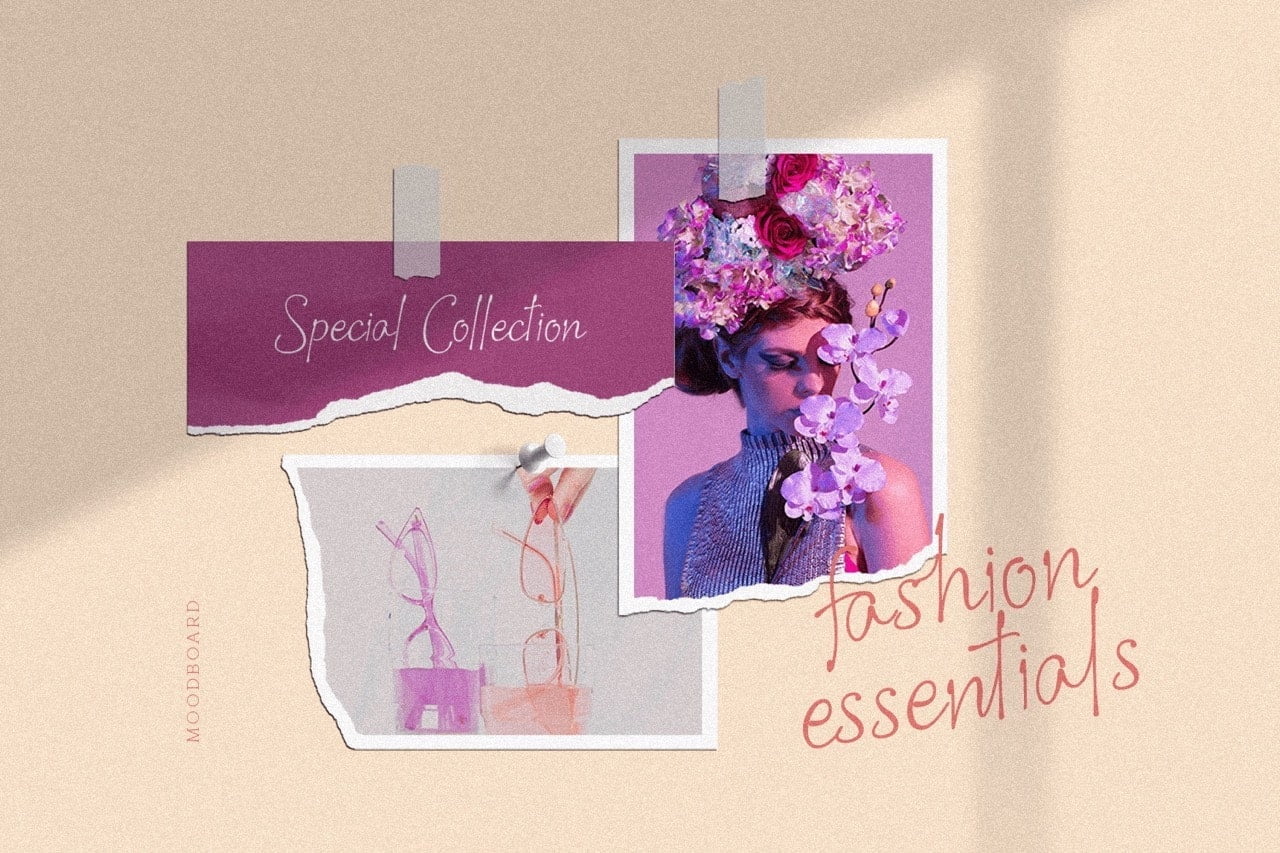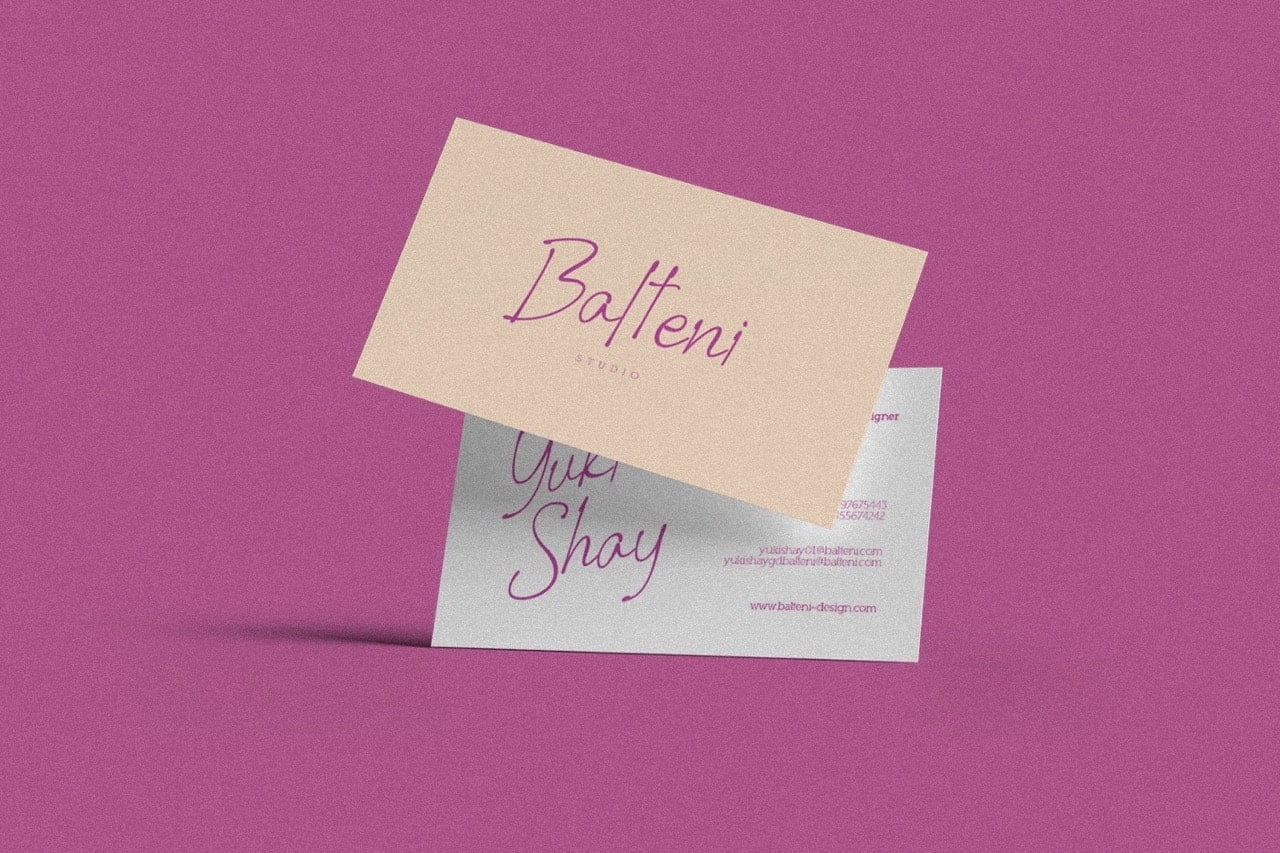
All Sunday has a handwritten and friendly feel, making it ideal for branding and logo designs, wedding invitations and stationery, social media posts, etc. Each font is handcrafted with custom handwritten kerning settings to give the feel of much more detailed lettering.
- Stylistic Ligatures and Alternate Glyphs
All Sunday Handwriting